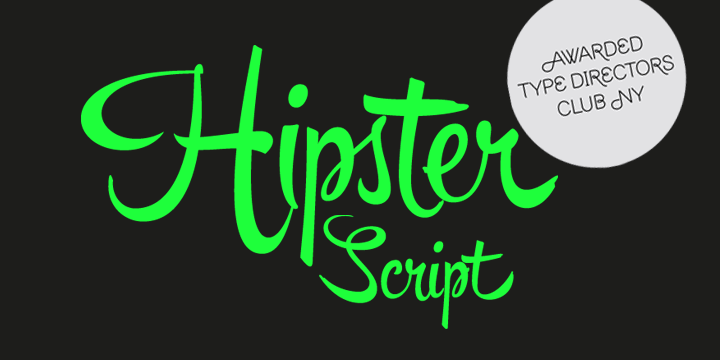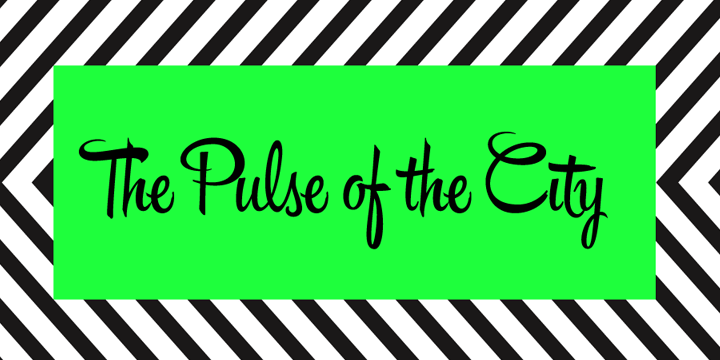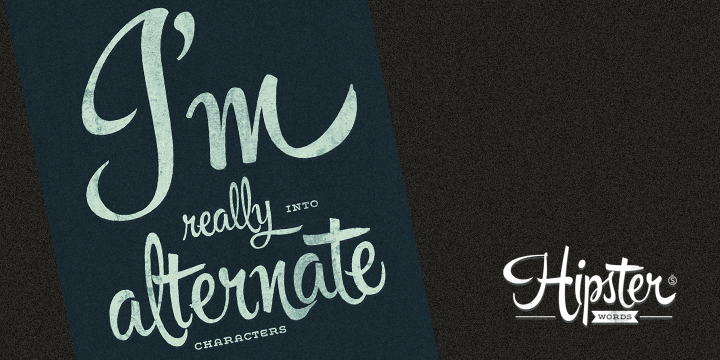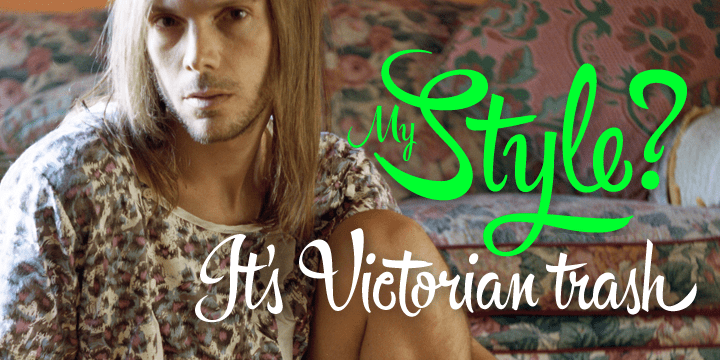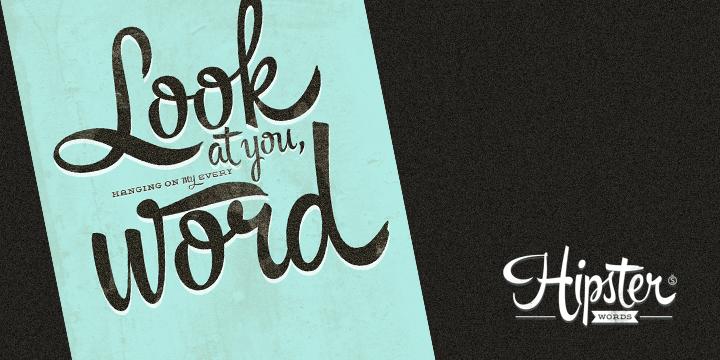
Hipster Script Pro
Font Family by Sudtipos
Hipster Script is another of my habitual attempts at trying to reduce the divide between manual and digital. In this case, I try to articulate brush lettering, try to get the computer to emulate continuous painting. The process wasn't that different from my work with Feel Script's shot at computerized commercial lettering, though here we have a more casual contrast, rather than the high seriousness of the Copperplate script. Swashes, alternates, ligatures ? too many of them, all trying to make the interplay between the tool's two extreme widths remain faithful to hand movement subtleties. I also toyed with ligatures containing apostrophes, something I've never seen before. With this typeface I think I've become more balanced in uniting the spontaneity of post-war ad lettering with the current trends in illustration and design.
Hipster Script received a Judge's choice Certificate of Excellence at the Type Directors of New York and was selected to be part of the Bienal Tipos Latinos 2012.